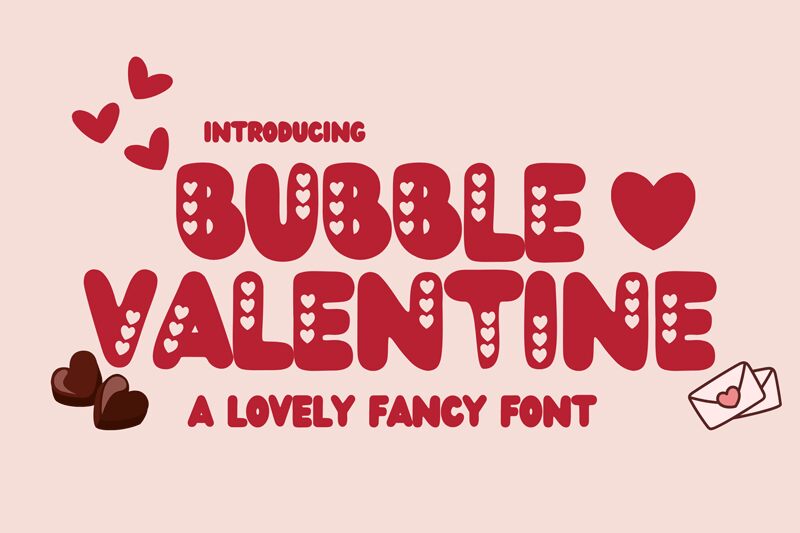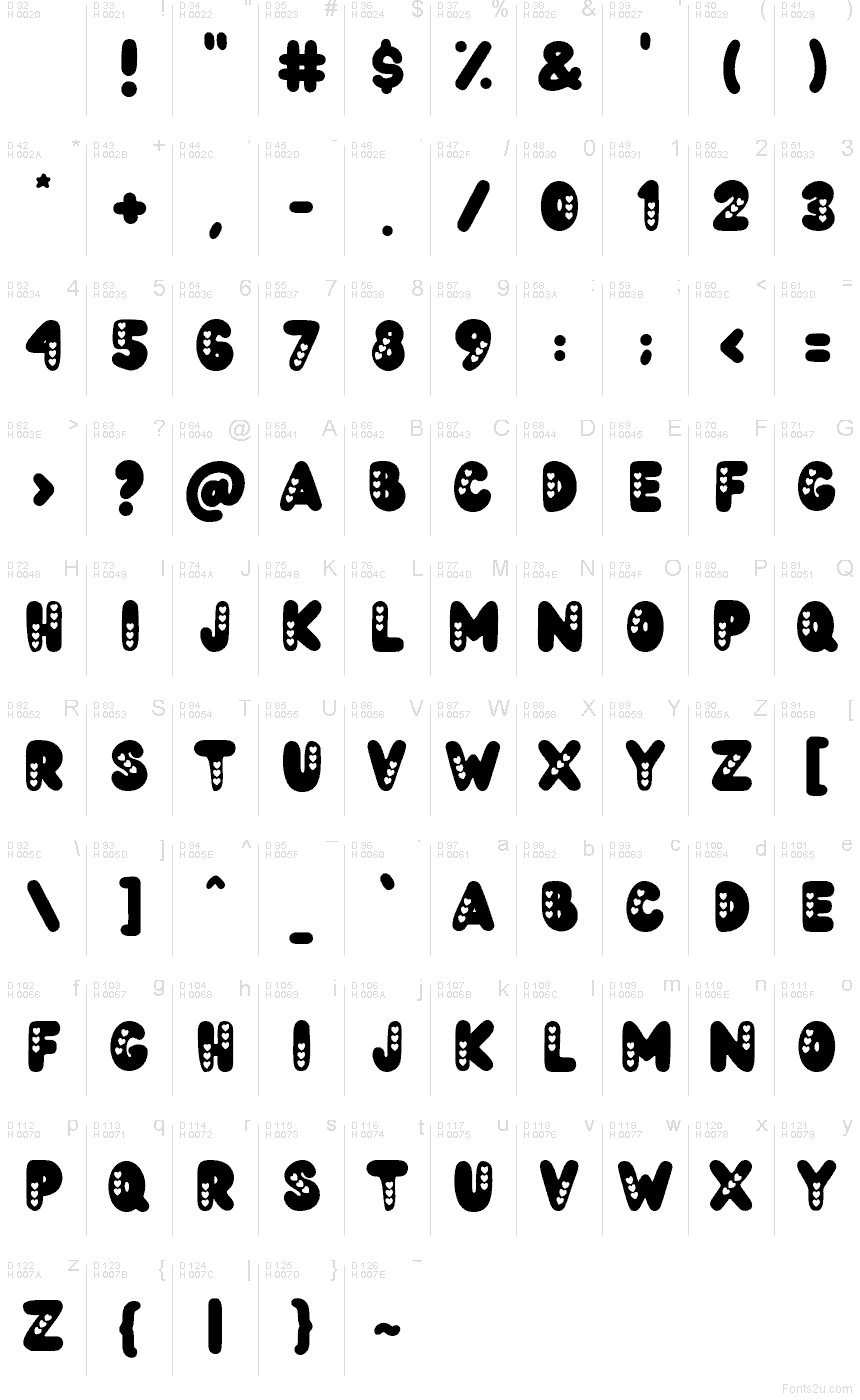
Bubble Valentine
Bubble Valentine font by DM Letter Studio - Dimas Prasetyo is a free holiday valentine font that looks like it’s been piped from glossy chocolate and dotted with tiny heart-shaped sprinkles. Each rounded letter swells with chunky, bubbly curves, while the playful cutout hearts add a sugary, handmade feel that’s more candy-shop than calligraphy. The rhythm of the forms stays tight and legible, so even with all the decoration, your message reads loud and clear.
Using Bubble Valentine, this free font shines on Valentine’s cards, kids’ party invitations, classroom printables, candy packaging, romantic social posts, and bold headline graphics. It works beautifully at larger sizes where the inner heart details can really pop. For a balanced look, pair Bubble Valentine with a simple, clean sans serif for body text so the bubbly letters can take center stage without overwhelming your layout.